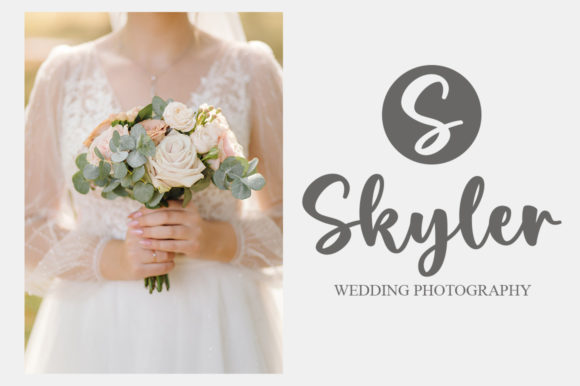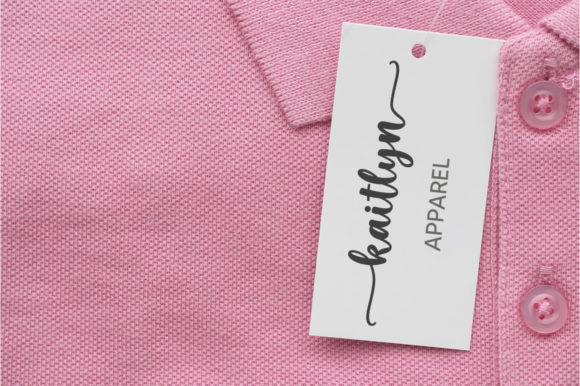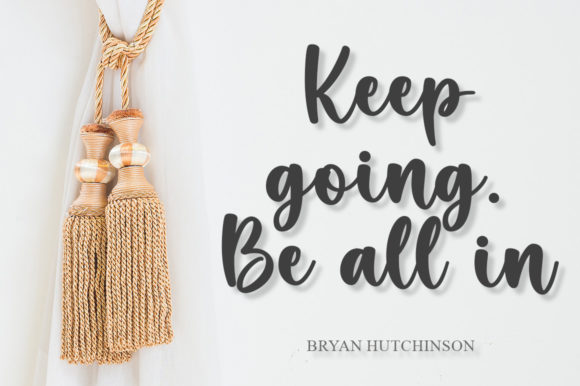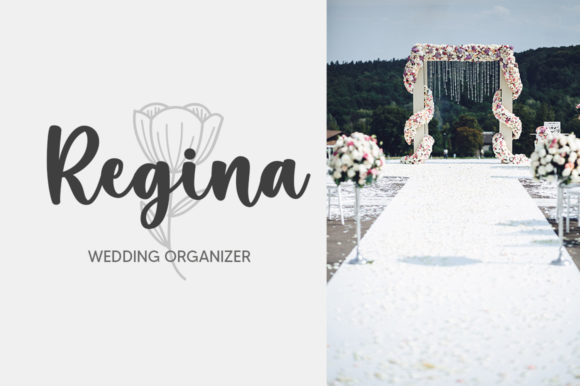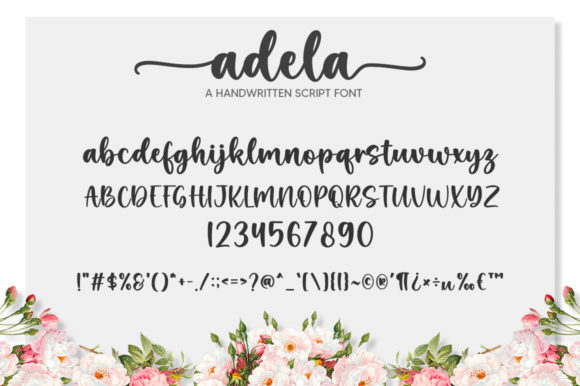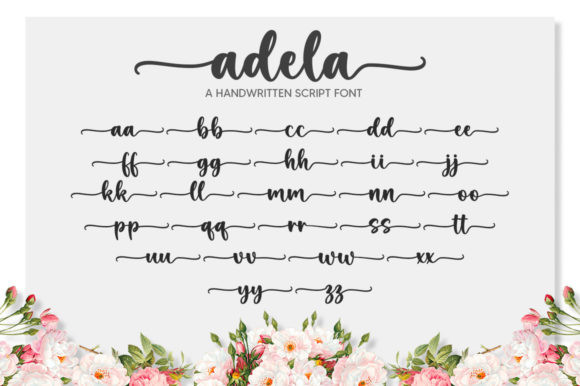
The Quest for the Perfect Font: Discovering Adela
I still remember the frustration of scrolling through font after font, searching for the perfect one to bring my design project to life. As a designer, I’ve had my fair share of late nights, sipping coffee and browsing through font libraries, trying to find that one font that captures the essence of my client’s vision. It was during one of those moments that I stumbled upon Adela, a lovely and timeless handwritten font that has since become a staple in my design toolkit.
What Makes Adela Special?
Adela is more than just a beautiful font – it’s a versatile tool that can elevate your designs, branding, and quotes. Here are some of the things I love about Adela:
- ✨ Timeless and elegant design: Adela’s handwritten style is both classic and modern, making it perfect for a wide range of design projects.
- ✅ PUA encoded: Adela is PUA (Private Use Area) encoded, which means you can access all the glyphs and swashes with ease, giving you endless creative possibilities.
- 💫 Eye-catching and unique: Adela’s distinctive style ensures that your designs will stand out from the crowd, making it perfect for logos, branding, and quotes.
While Adela is an amazing font, it’s not without its quirks. Here are some things to keep in mind:
- ✅ What I love:
- Adela’s versatility and range of glyphs and swashes.
- The font’s readability, even at smaller sizes.
- The beautiful, flowing script that adds a touch of elegance to any design.
- ⚠️ Small quirks or limitations:
- Some users may find the font a bit too ornate for certain projects.
- As with any script font, it may not be the best choice for very long blocks of text.
- Users may need to experiment with different sizes and colors to find the perfect fit for their design.
The Story Behind Adela
Adela was designed with the intention of creating a timeless, elegant font that captures the essence of handwritten script. The designer aimed to create a font that would be both versatile and beautiful, suitable for a wide range of design projects. While the exact story behind Adela’s creation may be shrouded in mystery, one thing is clear: Adela has become a beloved font among designers and crafters alike.
| Font Name | Adela Font |
| Author | Nirmala Creative |
| Can I use Adela for my branding and logos? | Absolutely! Adela’s unique and elegant design makes it perfect for branding, logos, and other creative projects. |
| Is Adela suitable for body text? | While Adela is a beautiful font, it’s best suited for headings, titles, and short blocks of text. For longer blocks of text, a more traditional font may be more suitable. |